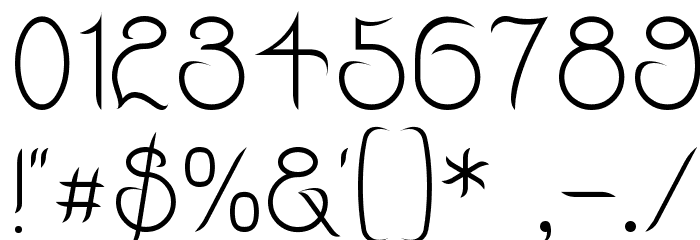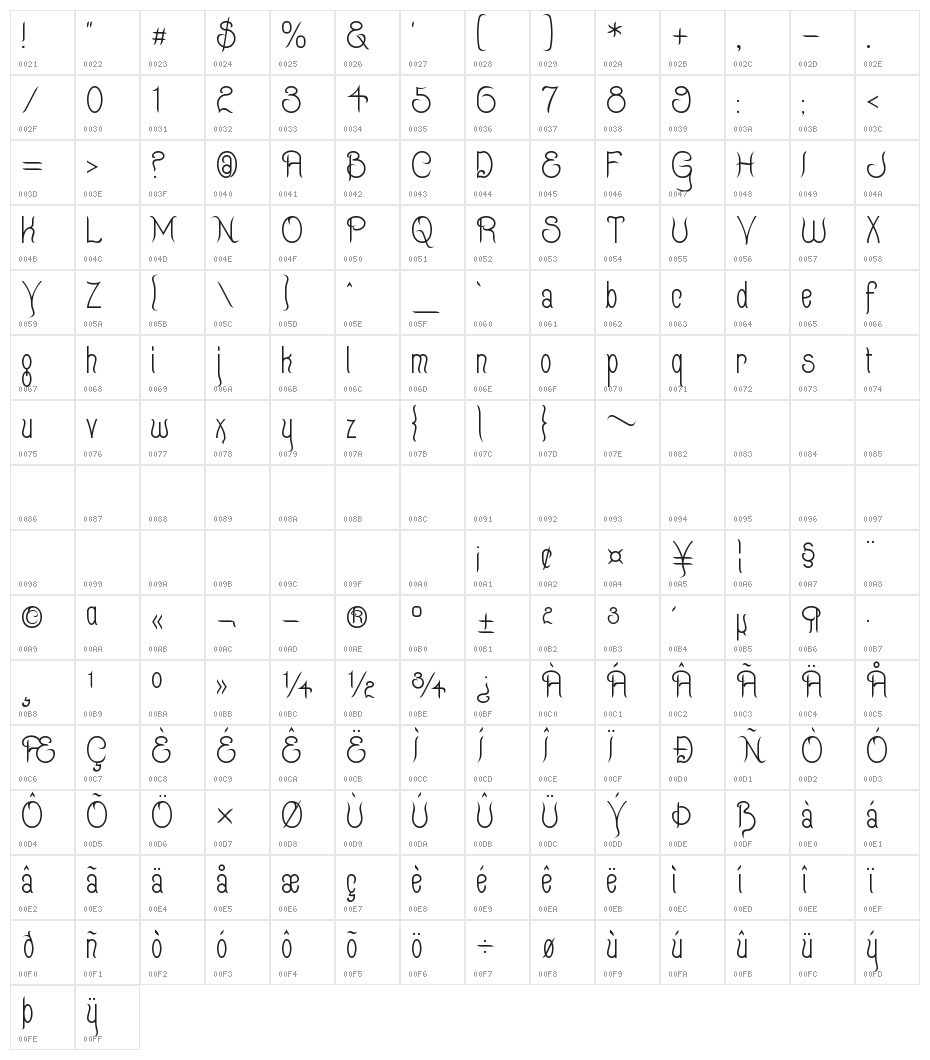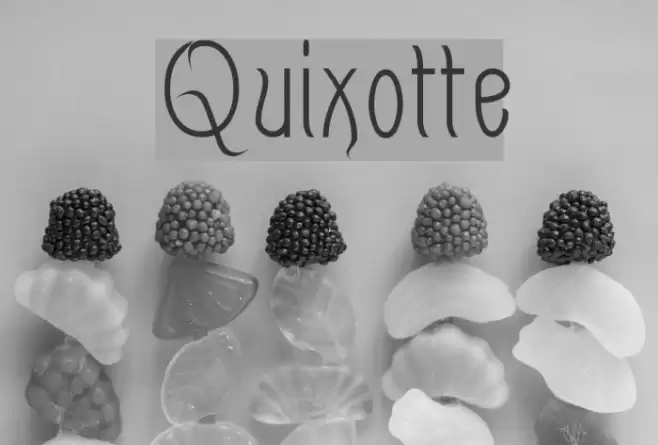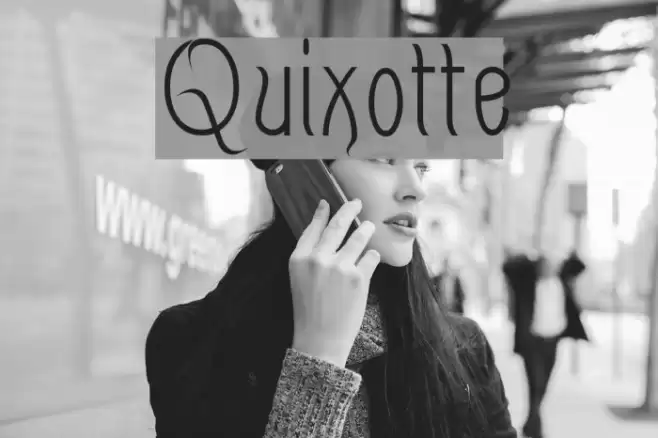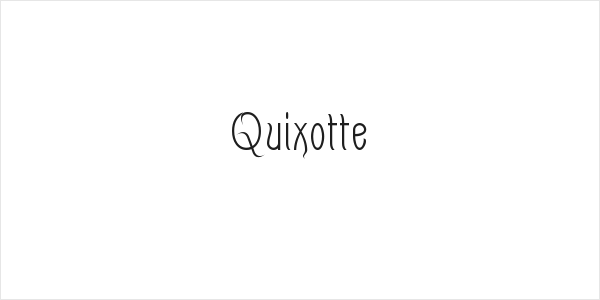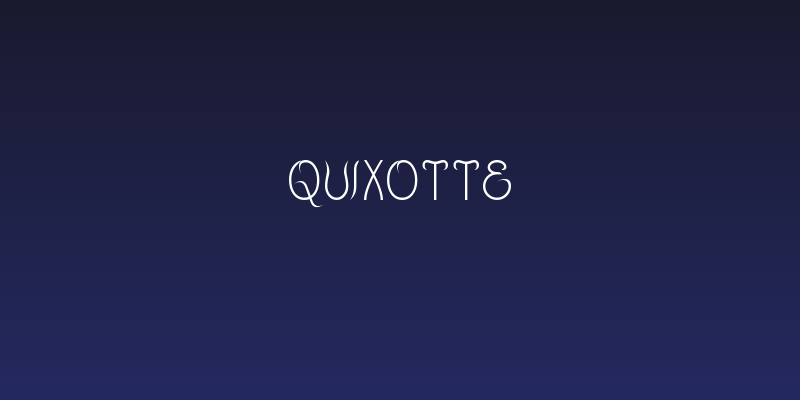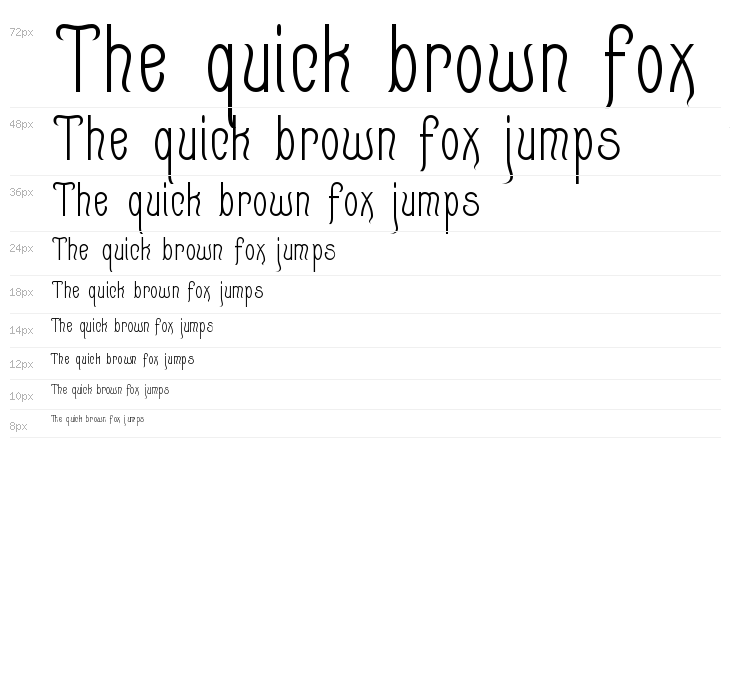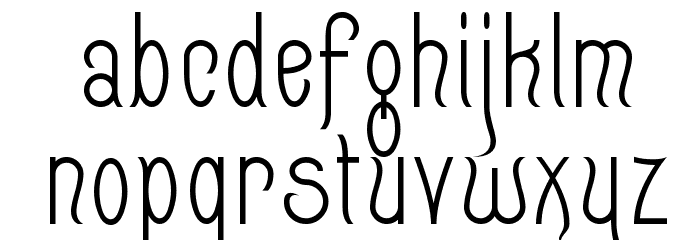
Quixotte Font
Quixotte Description
This font features a unique blend of whimsical and elegant elements, characterized by its flowing, curvilinear strokes and playful serifs. The uppercase letters exhibit a distinct flair with elongated ascenders and descenders, creating a sense of movement and dynamism. The lowercase letters maintain a cohesive style, with smooth curves and a slightly condensed form that enhances readability. The numerals are designed with a consistent stroke width, adding to the font's overall harmony. Special characters are thoughtfully integrated, maintaining the font's artistic and decorative appeal.
| Proposed Projects | Ideal for creative projects such as invitations, greeting cards, branding, and packaging design where a touch of elegance and playfulness is desired. |